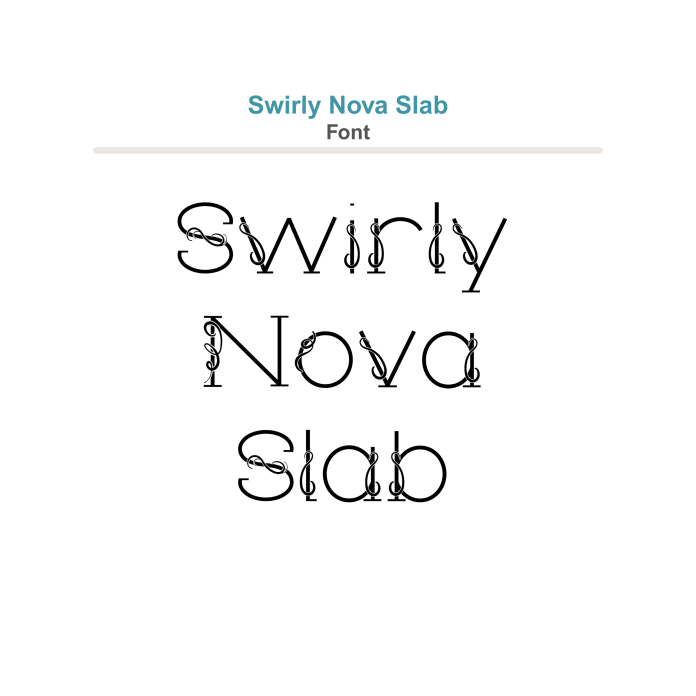
Swirly Nova Slab Font is a stylish serif typeface with delicate swirls and clean, linear strokes—perfect for adding a touch of elegance to your projects. Its modern yet classic look makes it ideal for cards, gift tags, planners, labels, and home decor. Designed for smooth cutting with vinyl or cardstock, this font also shines in print-and-cut designs. Whether you're crafting for everyday use or a special occasion, Swirly Nova Slab brings charm and versatility to your creative toolbox.